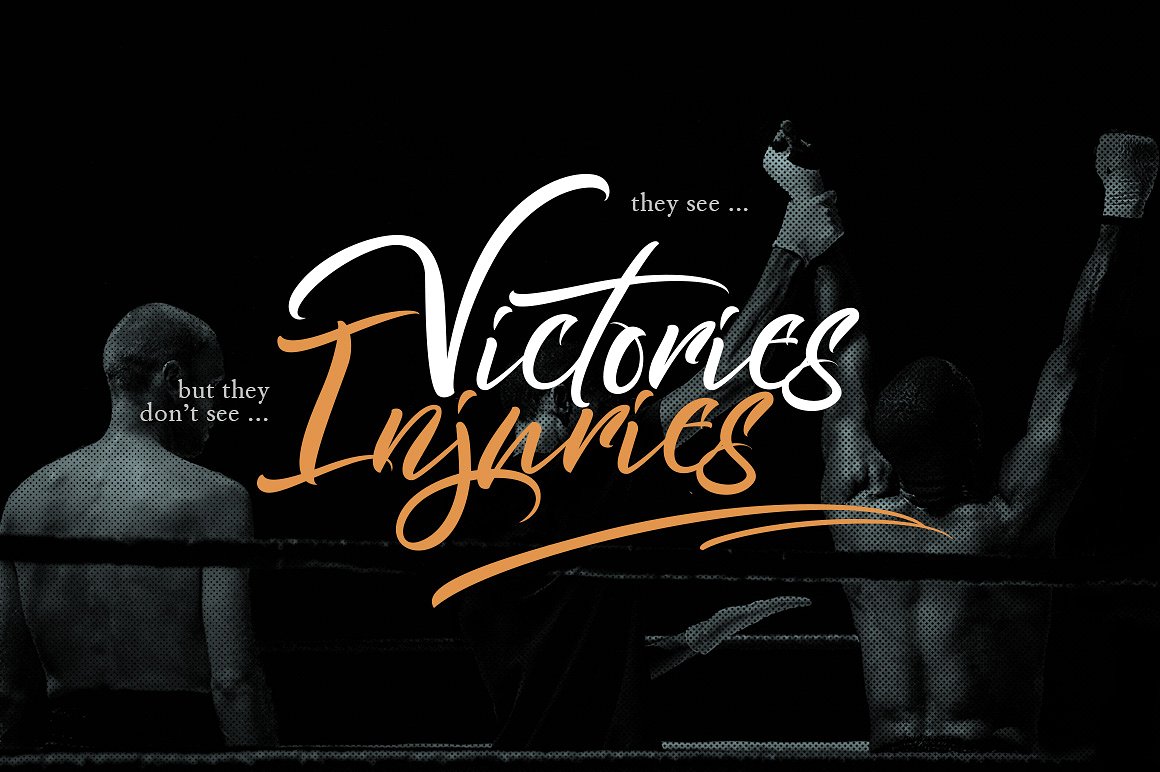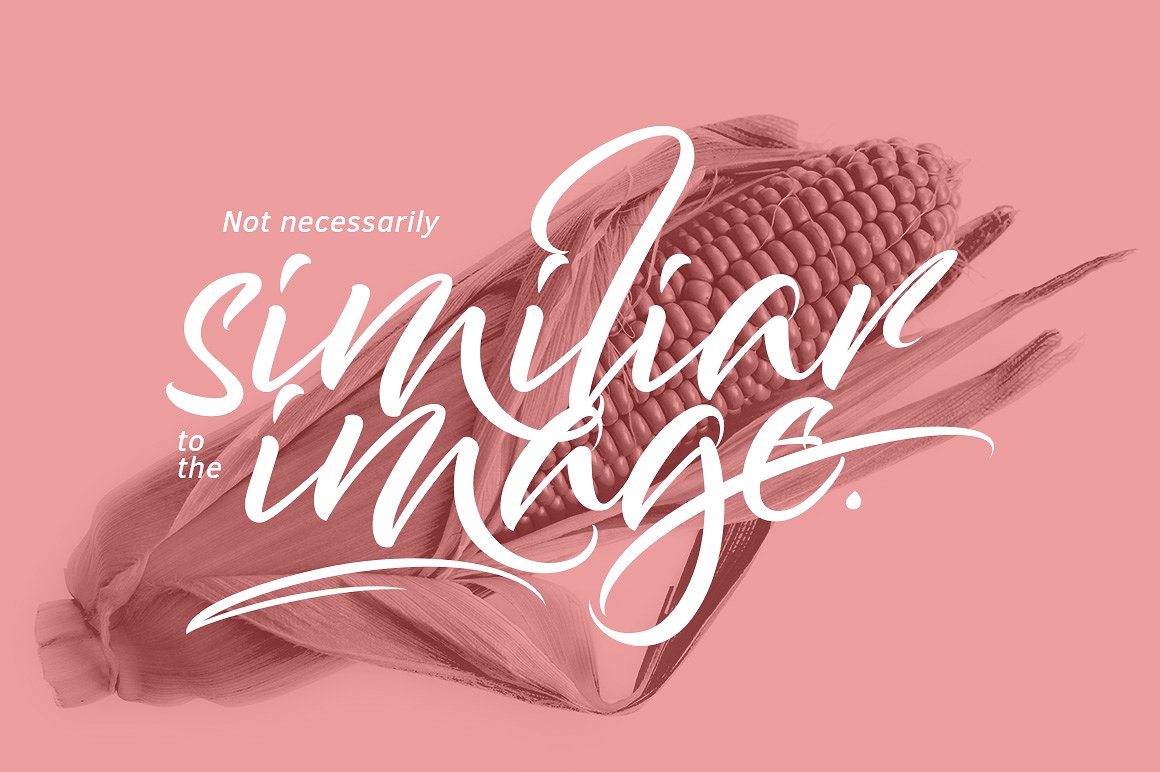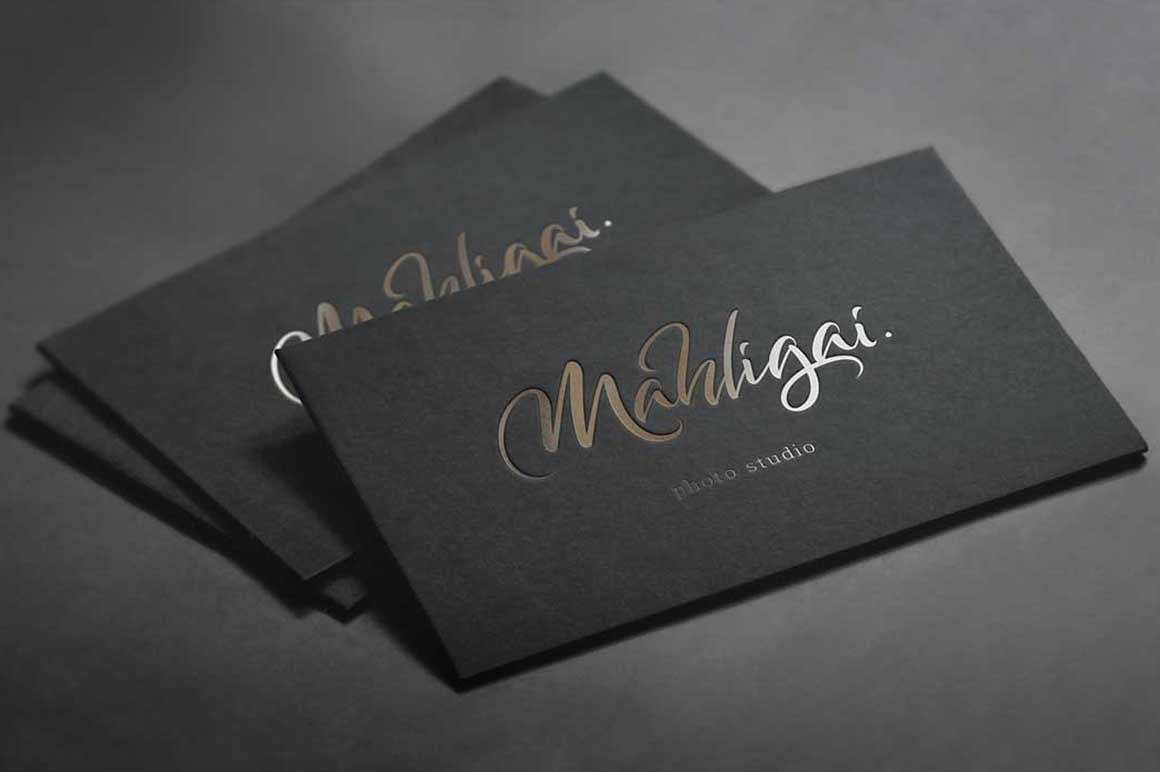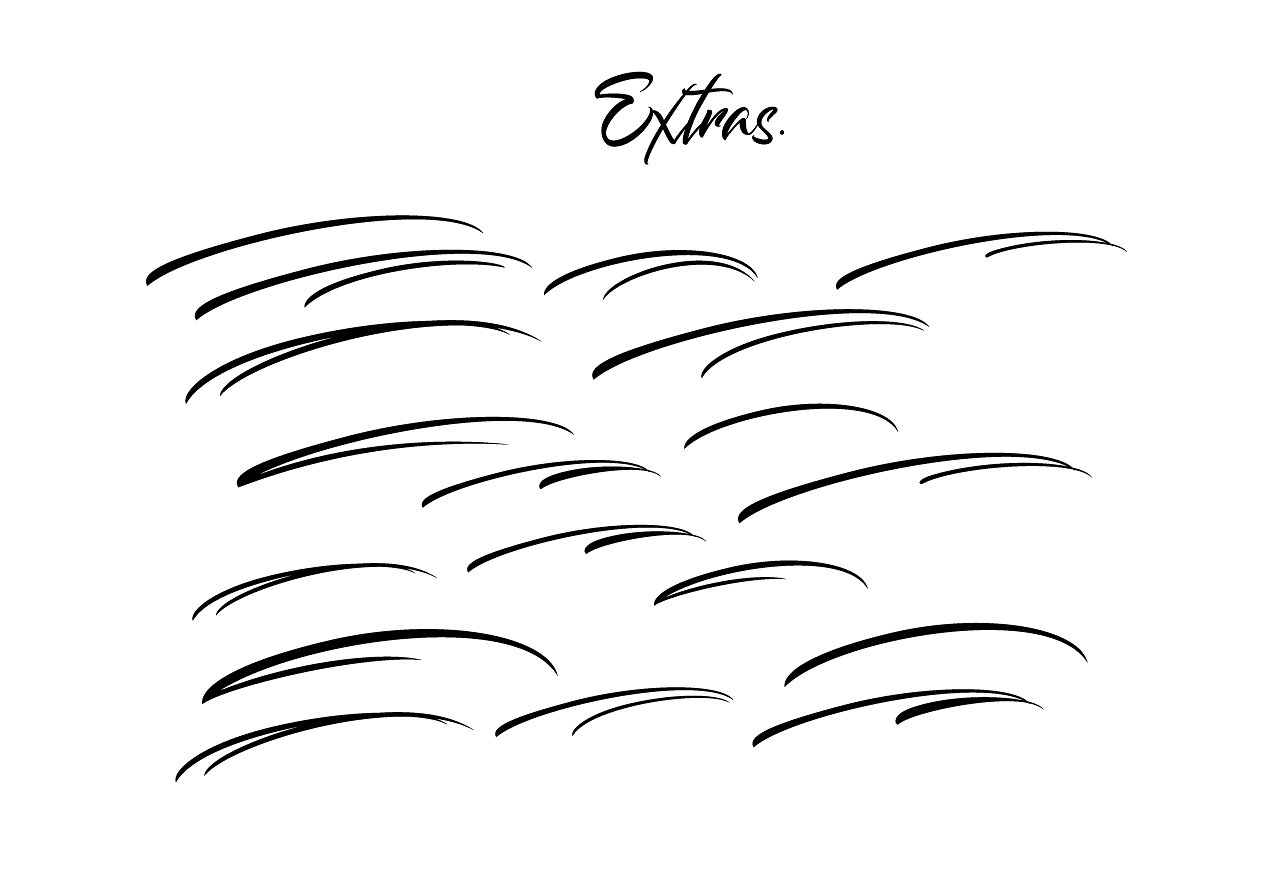
Bantham Handbrush Font
Introducing Bantham. Bantham designed by thirtypath. This is Bantham Typeface, the display handbrush lettering, simple and easy to create awesome lettering, just type your words and then you will immediately see the great results. Bantham is handbrush font, every single letters have been carefully crafted to make your text looks beautiful. With modern style this font will perfect for many different project ex: quotes, blog header, poster, wedding, branding, logo, fashion, apparel, letter, invitation, stationery, etc.